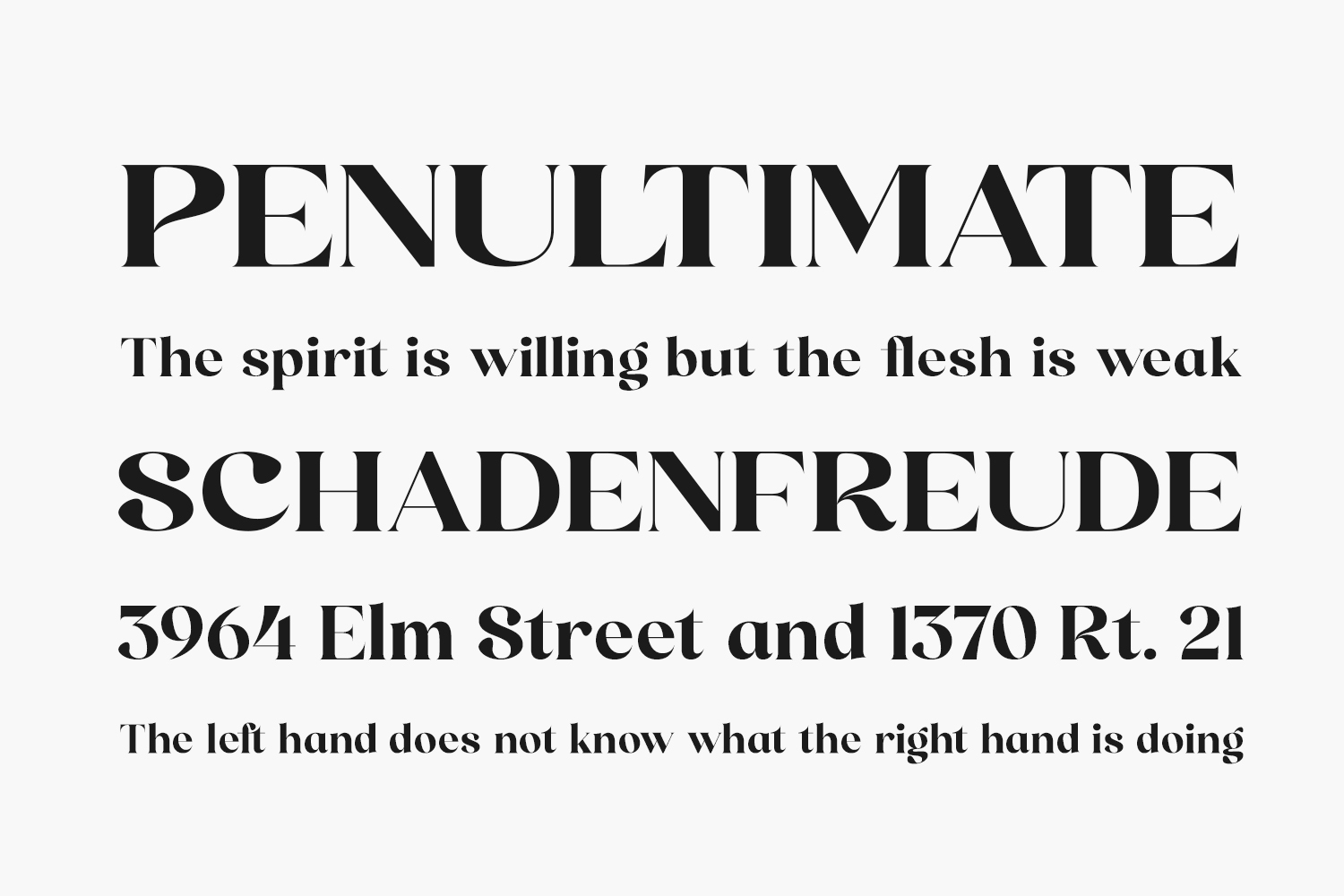
Qielftan Free Font – Elegant Serif Typeface for Luxury Branding
Qielftan is a modern and sophisticated serif font designed by Storytype Studio to bring timeless elegance to your creative projects. With its clean lines, refined contrast, and stylish character, this free font works perfectly for crafting luxurious logos, magazine headers, fashion branding, apparel design, and more. Available in OTF format with support for Latin characters, Qielftan is ideal for designers seeking a high-quality serif font that blends classic beauty with contemporary clarity.
Why Choose Qielftan?
- Elegant Style: Combines traditional serif aesthetics with modern minimalism for a refined, versatile look.
- Ideal for Luxury Design: Perfect for fashion brands, editorial layouts, or premium product packaging.
Where to Use Qielftan?
Qielftan shines across a variety of design applications:
- Logos & Branding: Adds sophistication to luxury brand identities, fashion labels, or boutique shops.
- Magazine & Editorial Design: Stands out in blog headers, book covers, or advertising campaigns.
- Apparel & Packaging: Ideal for clothing tags, accessory branding, and premium product labels.
- Quotes & Social Media: Creates elegant text overlays for Instagram Stories, Pinterest graphics, or quote posts.
- Lettering Projects: Brings class and structure to custom typography, posters, and event signage.
Design Tips with Qielftan
To maximize the impact of Qielftan, pair it with minimalist sans-serif fonts like Lato or Central Powers for balance and readability. Use this font at medium-to-large sizes to highlight its elegant serifs and contrast. For digital use, apply it to short, meaningful phrases over neutral or textured backgrounds. Try our interactive font preview tool below to test Qielftan with your own text before downloading!